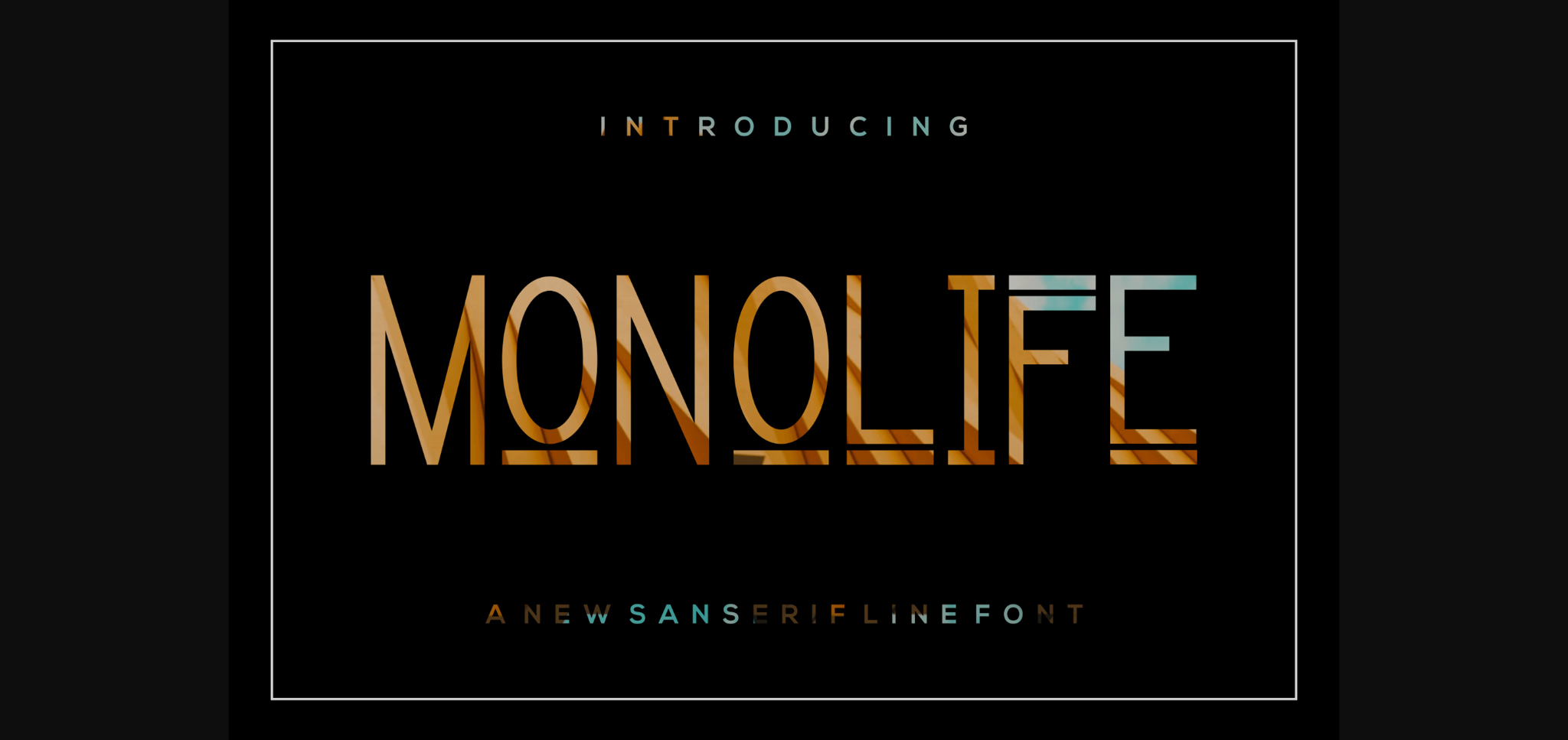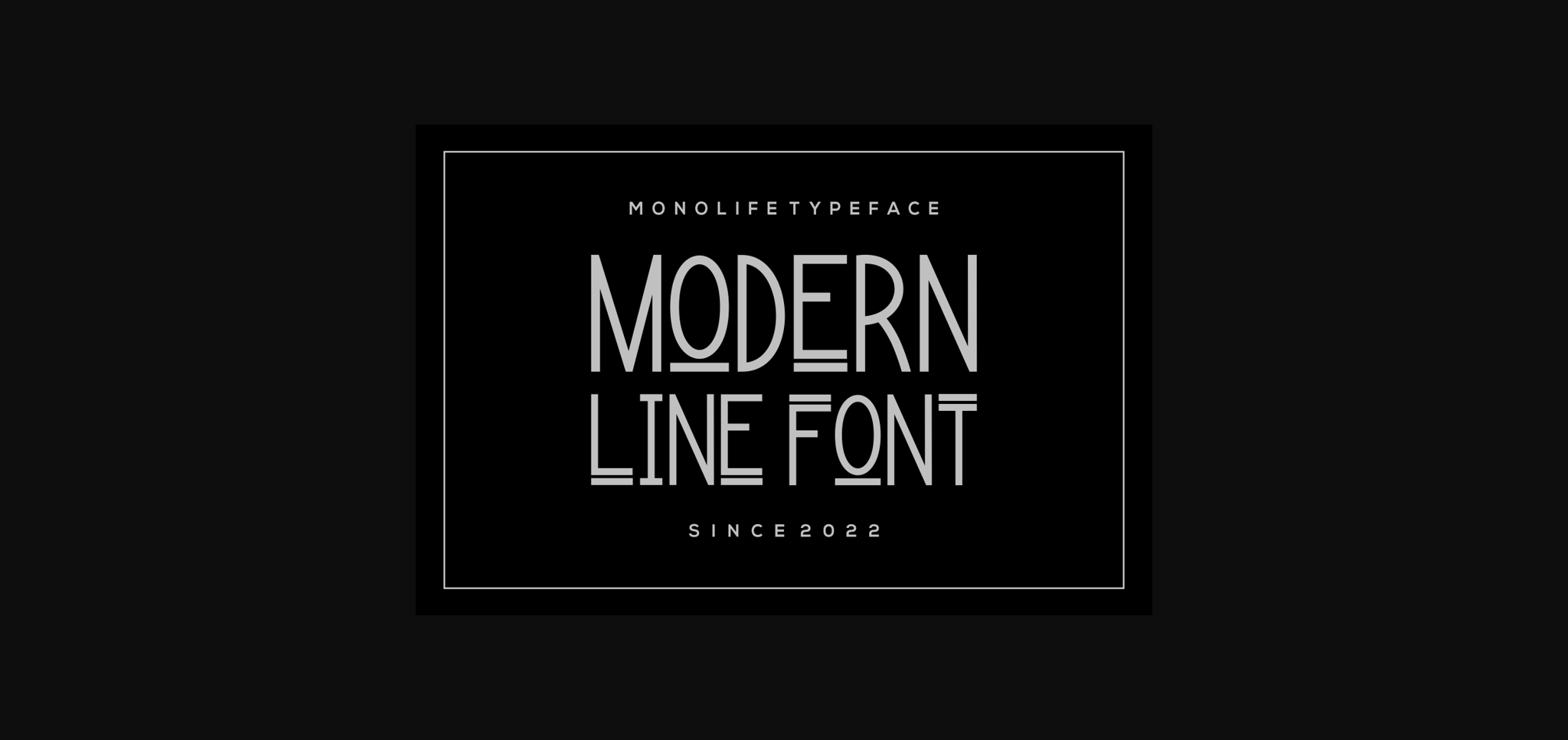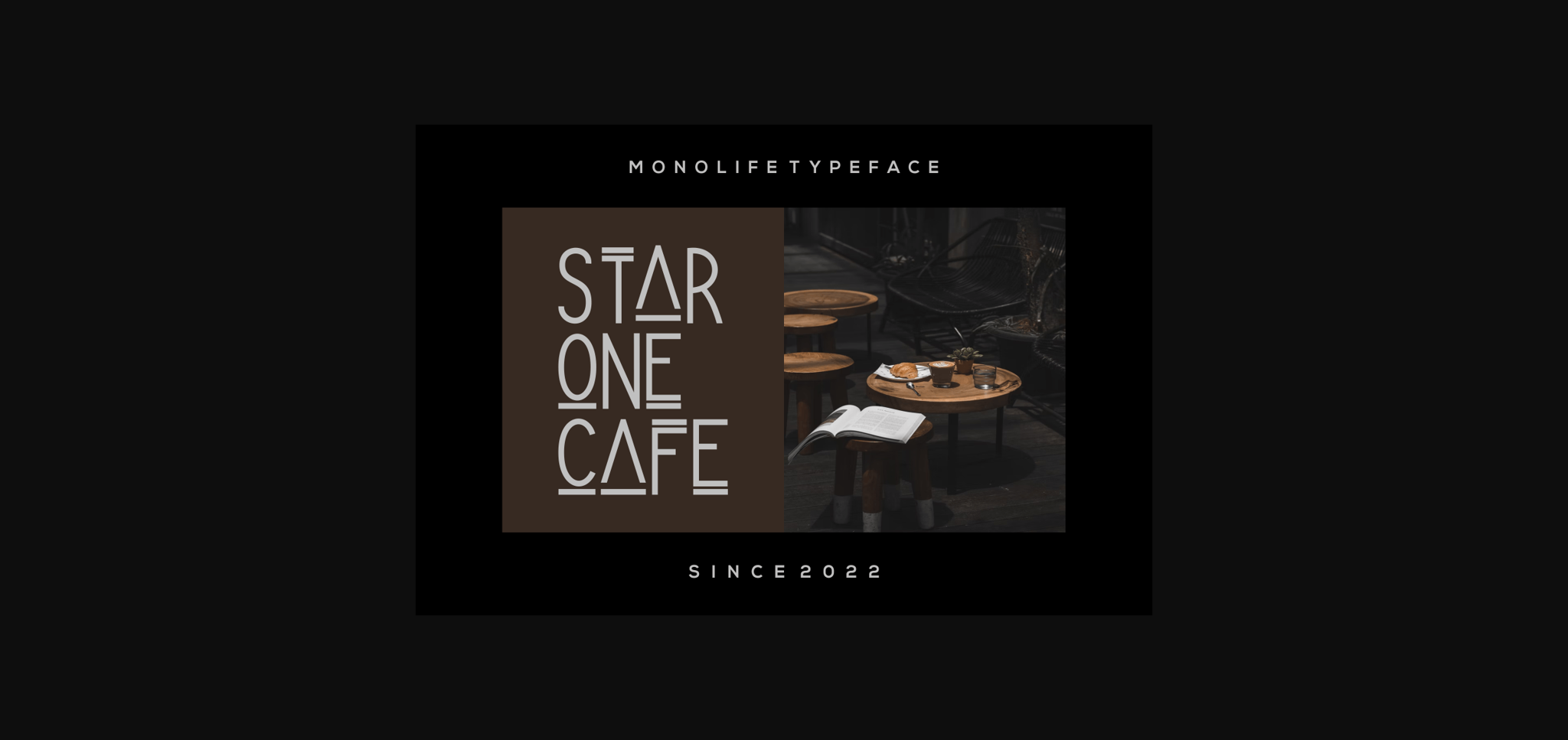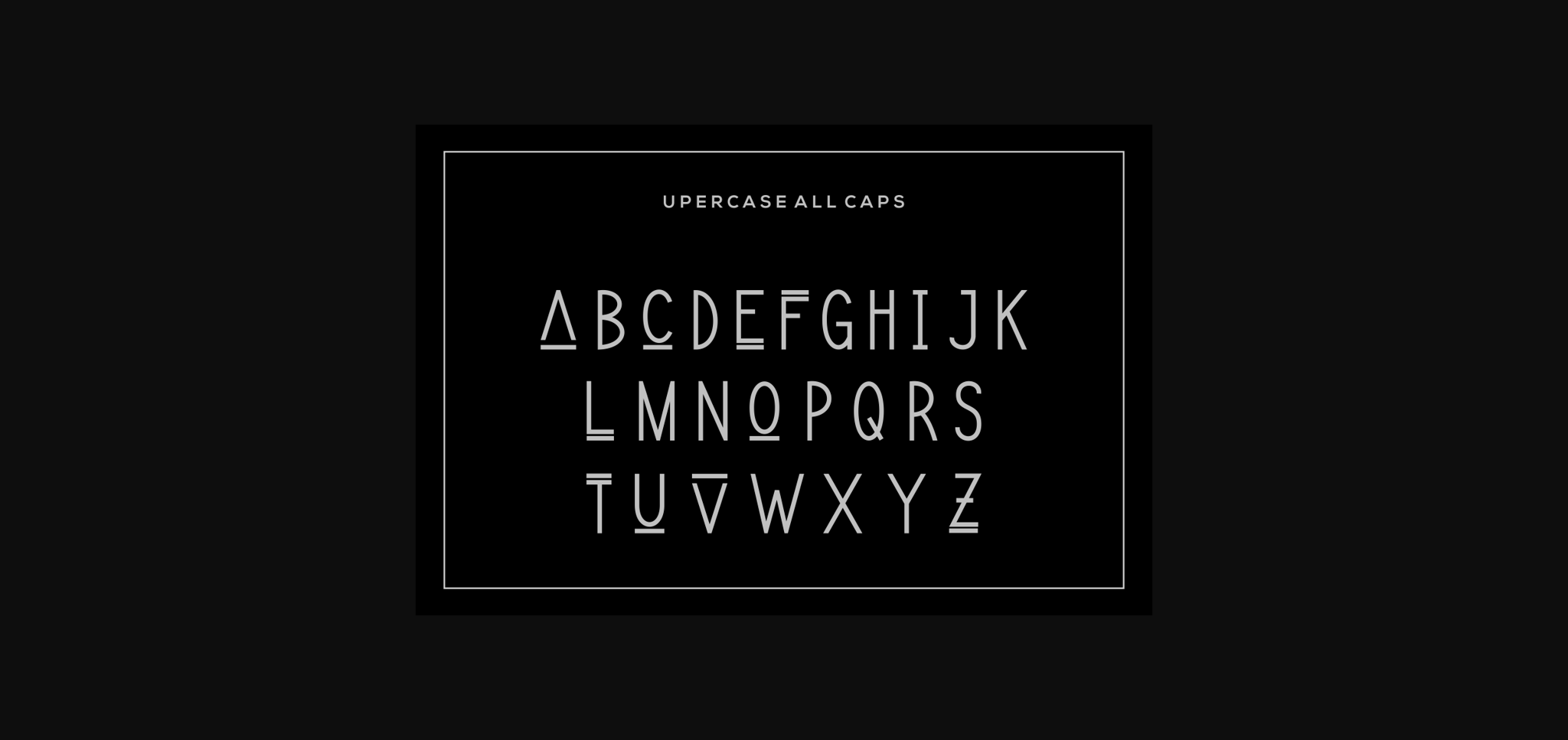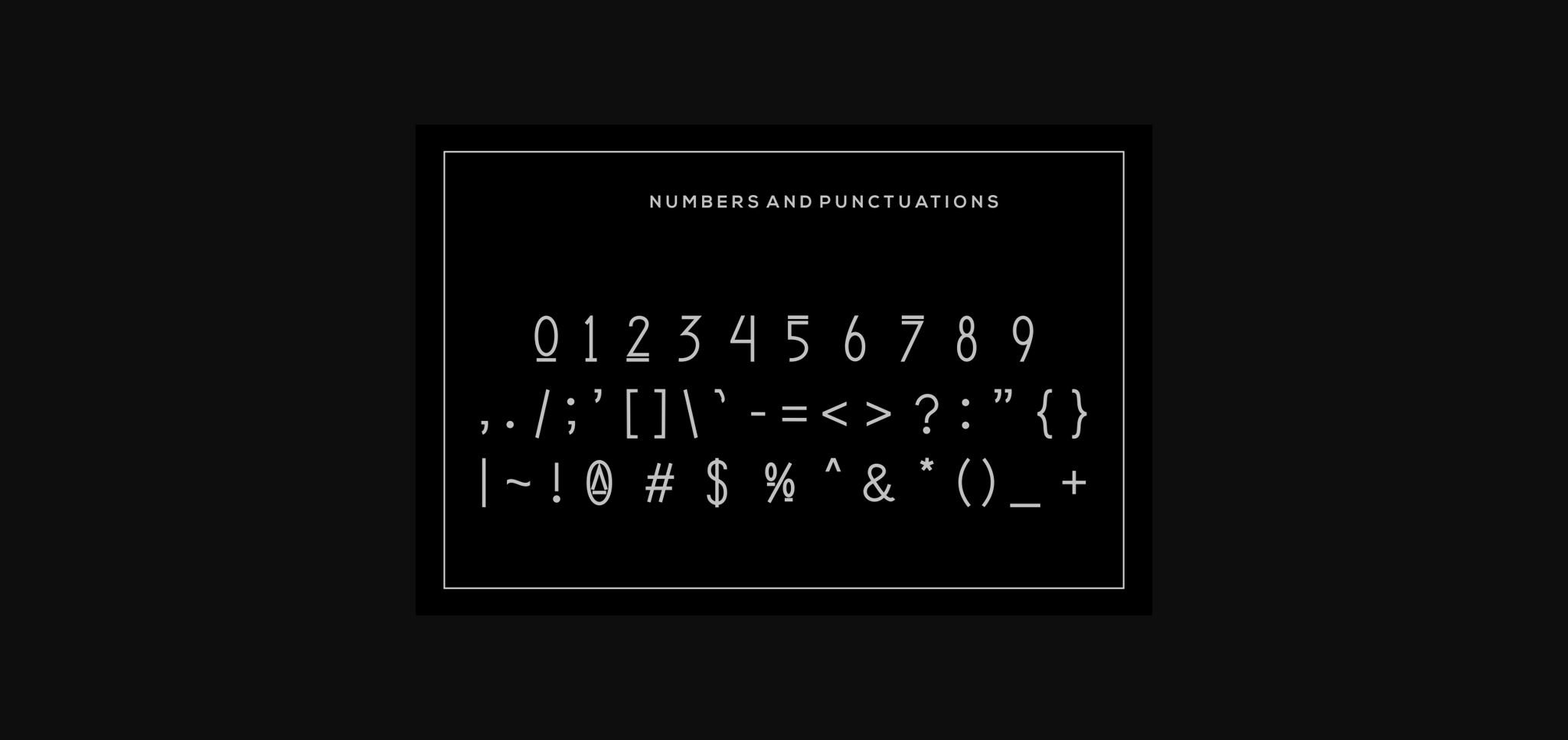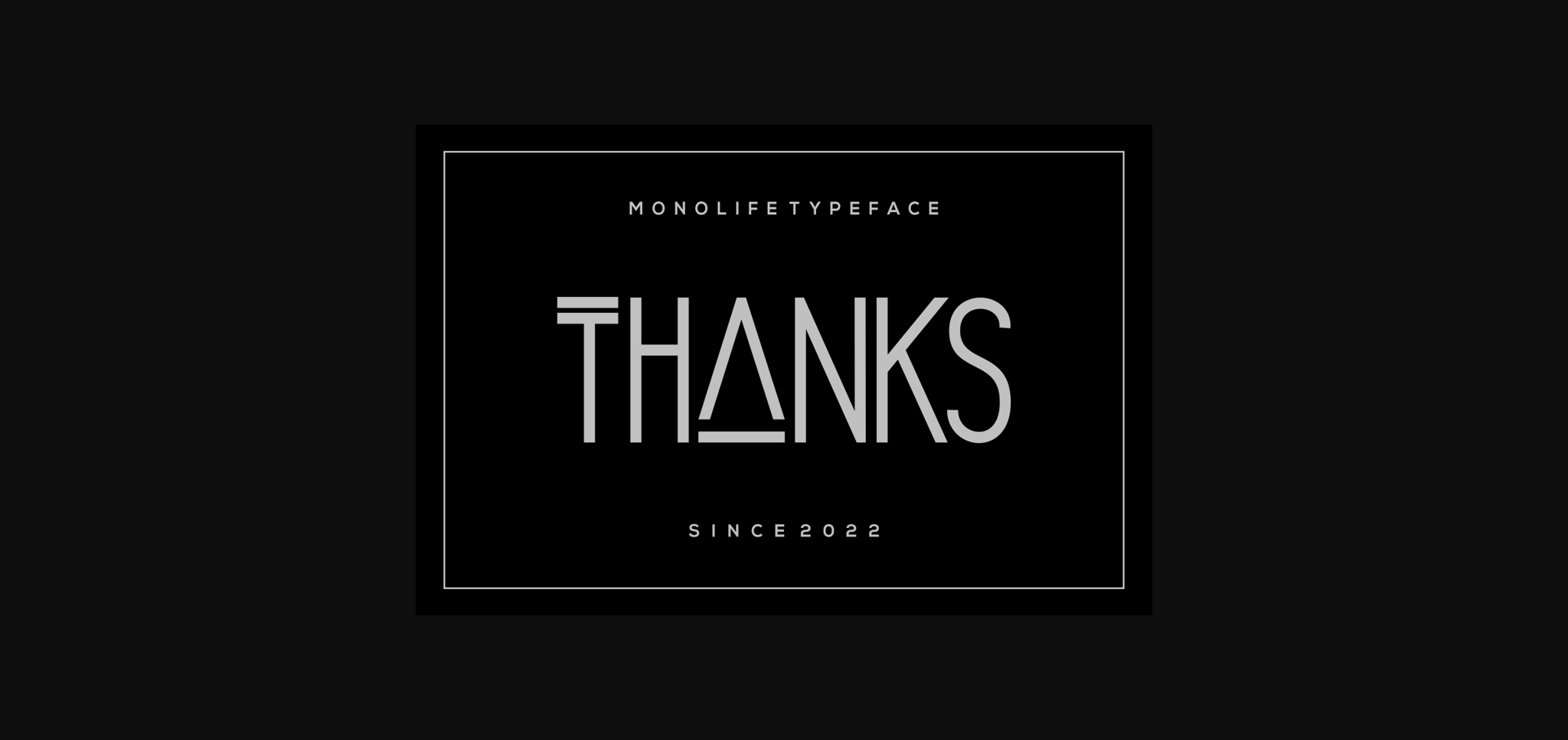
HomeSans Serif FontsMonolife Font Sans Serif Fonts Monolife Font FacebookXPinterestWhatsApp 1 of 8 ... Monolife Font Poster 2... Monolife Font Poster 3... Monolife Font Poster 4... Monolife Font Poster 5... Monolife Font Poster 6... Monolife Font Poster 7... Monolife Font Poster 8... About Monolife Font Monolife is a cool and modern sans serif font. Add it confidently to your projects and you will love the results! DOWNLOAD NOW People also explored Vintage Handmade Font Growself Monogram Font Rellos Font Simply Bloom Duo Font Angevine Font Withsand Font Hattami Font Rukia Font Pineapple Font 274 0 TagsMonolife Font Previous articleCarientz FontNext articleSimple Minimalist Font LEAVE A REPLY Cancel reply Comment: Please enter your comment! Name:* Please enter your name here Email:* You have entered an incorrect email address! Please enter your email address here Website: Save my name, email, and website in this browser for the next time I comment. Personal Use Free Baby Magnolia Personal Use Free Read more about this font Snaily Personal Use Free Read more about this font Lightning Script Personal Use Free Read more about this font Spaghetti Personal Use Free Read more about this font BLOG Using Fonts in Digital Marketing: Tips to Strengthen Your Brand Identity In the realm of digital marketing, every visual element plays a crucial role in shaping a brand's identity, and fonts are no exception. The... Exploring Font Trends To increase your work productivity, choose the most readable fonts. Elegant Wedding Invitation Fonts – Handwritten & Script Fonts